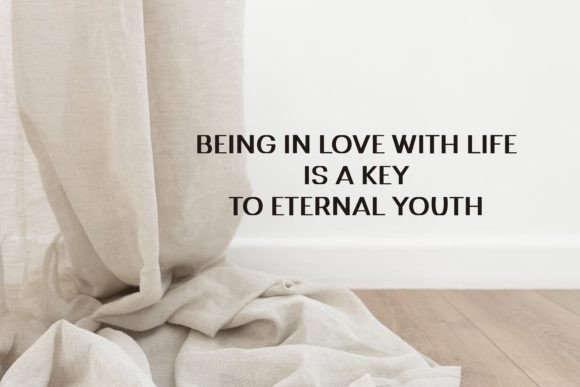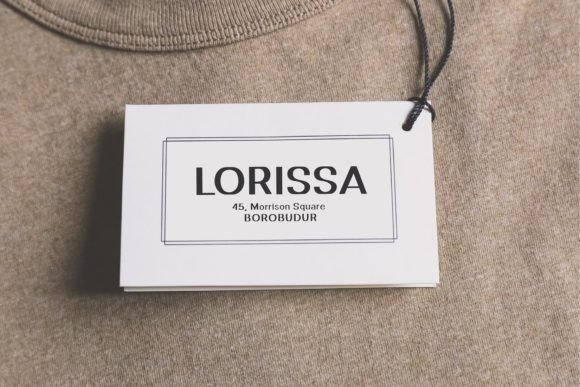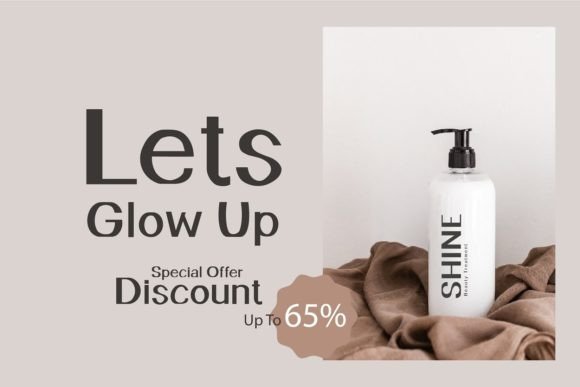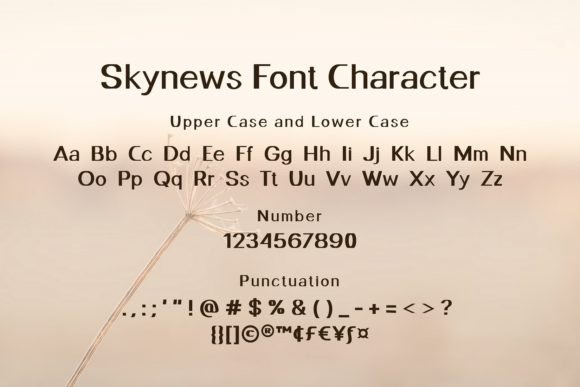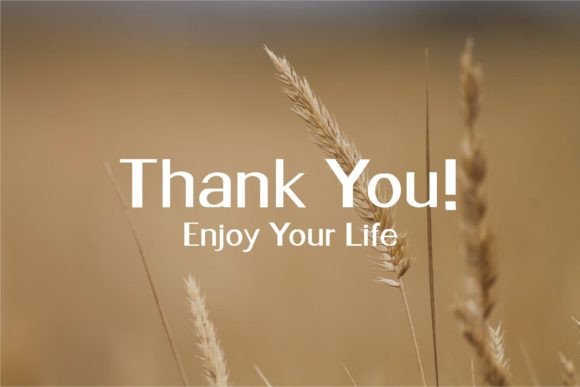
Introduction to Skynews Font
Skynews: A sleek and modern sans-serif font that exudes contemporary elegance.
Its clean lines and versatility make it the perfect choice for a wide range of design projects, from headlines to branding, giving your text a fresh and stylish look .
Key Features of Skynews Font
Why Choose Skynews Font?
Skynews Font offers exceptional quality and versatility, making it a valuable addition to your design toolkit. Whether you’re creating for personal projects or commercial use, Skynews Font delivers professional results.